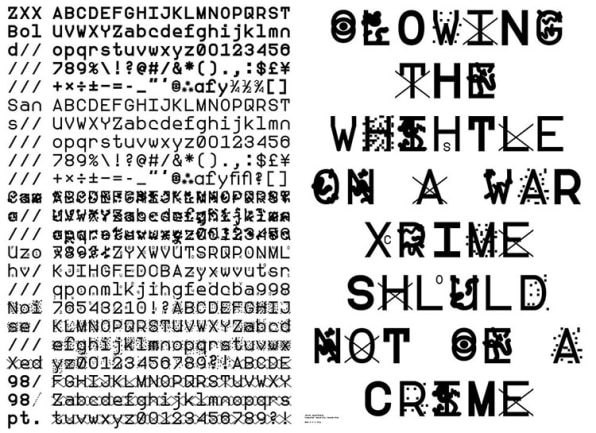
Long before Edward Snowden leaked the Prism documents, Sang Mun served two years of mandatory service for the Korean military, gathering intelligence under the NSA. He didn’t choose to publish any classified documents, but he’s encouraging a counter-surveillance revolution in his own way: by designing ZXX a typeface to thwart prying eyes.
“Sometimes these ideas about privacy can feel large and abstract to the average person,” Mun tells Co.Design. “ZXX might bridge the disconnect between the supercomputers at Fort Meade and someone’s Microsoft Word at home.”
In its sans and bold forms, ZXX is completely legible (by humans and machines). But the free downloadable font comes with four illegible styles–Camo, False, Noise, and Xed–that Mun created with the eye of a designer and the acuity of an ex-NSA agent. Camo, for instance, looks like letters wearing camouflage–but there’s a good reason beyond the military overtones. That pattern also confuses the logic driving optical character recognition devices. In other words, something typed in Camo can’t be scanned and algorithmically converted to computer-comprehended text.
Another permutation called False takes a different approach, inverting the characters you type like a cypher. An A becomes a Z, or 0 becomes a 9. Again, it’s meant to confuse machine logic, but humans can easily make out a tiny alternate letter embedded inside.
So could you really dodge the NSA by typing emails in this font? Not really. There are mountains of metadata and other means with which you’re tracked. And on top of that, Mun is the first to admit the relative obviousness of his own trickery.
“In all likeliness, it would be impossible to fool the NSA with a typeface for long,” he writes. “When I first showed the work to my peers, they enjoyed the subtle humor embedded in my political statements. It was obvious that this wasn’t the best tool to fight the authorities, but it did attract attention, even before the recent revelations regarding Prism.”
And that’s really the point. ZXX is an advocacy platform in a font, as well as a turnkey tool to empower a little digital disobedience. At the end of the day, ZXX’s goal isn’t actually communication obfuscation. ZXX is meant, ironically, to send a very specific message to our government.